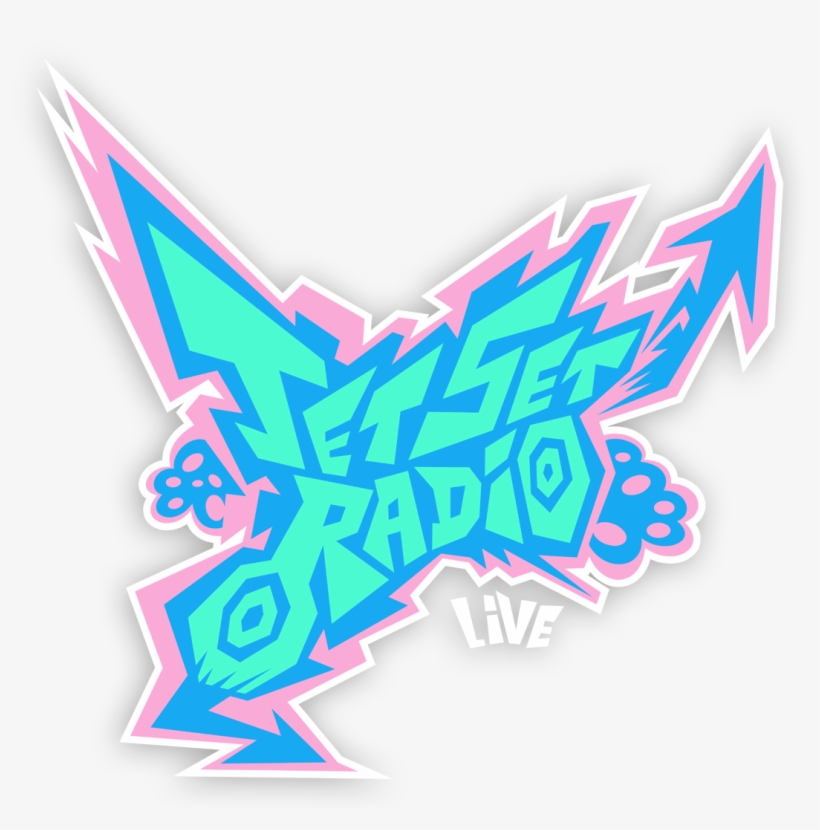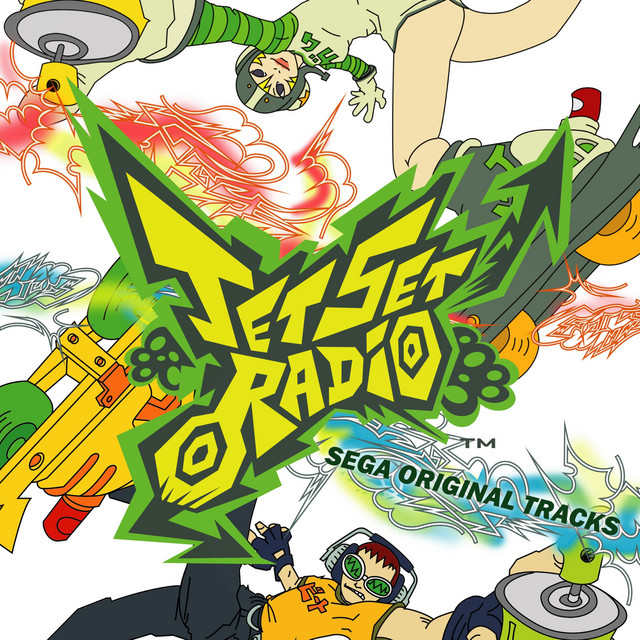
Jet Set Radio Font
Jet Set Radio Font - Jet set is a free font for commercial use created by captain falcon. Remember that game, jet set radio, and it's sequel, jet set radio future? Jet set font download is available free from fontget. Well, this font is a conglomerate of the fonts seen in. Jet set is a various.
Jet set is a free font for commercial use created by captain falcon. Well, this font is a conglomerate of the fonts seen in. Jet set font download is available free from fontget. Remember that game, jet set radio, and it's sequel, jet set radio future? Jet set is a various.
Remember that game, jet set radio, and it's sequel, jet set radio future? Jet set font download is available free from fontget. Well, this font is a conglomerate of the fonts seen in. Jet set is a various. Jet set is a free font for commercial use created by captain falcon.
Well, this font is a conglomerate of the fonts seen in. Jet set is a free font for commercial use created by captain falcon. Remember that game, jet set radio, and it's sequel, jet set radio future? Jet set font download is available free from fontget. Jet set is a various.
Jet set font download is available free from fontget. Jet set is a free font for commercial use created by captain falcon. Jet set is a various. Well, this font is a conglomerate of the fonts seen in. Remember that game, jet set radio, and it's sequel, jet set radio future?
Remember that game, jet set radio, and it's sequel, jet set radio future? Jet set font download is available free from fontget. Jet set is a free font for commercial use created by captain falcon. Well, this font is a conglomerate of the fonts seen in. Jet set is a various.
Jet set is a various. Jet set is a free font for commercial use created by captain falcon. Jet set font download is available free from fontget. Well, this font is a conglomerate of the fonts seen in. Remember that game, jet set radio, and it's sequel, jet set radio future?
Remember that game, jet set radio, and it's sequel, jet set radio future? Jet set is a free font for commercial use created by captain falcon. Jet set is a various. Well, this font is a conglomerate of the fonts seen in. Jet set font download is available free from fontget.
Jet set font download is available free from fontget. Jet set is a various. Well, this font is a conglomerate of the fonts seen in. Remember that game, jet set radio, and it's sequel, jet set radio future? Jet set is a free font for commercial use created by captain falcon.
Well, this font is a conglomerate of the fonts seen in. Jet set font download is available free from fontget. Jet set is a various. Jet set is a free font for commercial use created by captain falcon. Remember that game, jet set radio, and it's sequel, jet set radio future?
Jet set is a various. Jet set font download is available free from fontget. Jet set is a free font for commercial use created by captain falcon. Well, this font is a conglomerate of the fonts seen in. Remember that game, jet set radio, and it's sequel, jet set radio future?
Jet set is a various. Remember that game, jet set radio, and it's sequel, jet set radio future? Jet set is a free font for commercial use created by captain falcon. Jet set font download is available free from fontget. Well, this font is a conglomerate of the fonts seen in.
Jet set font download is available free from fontget. Jet set is a various. Well, this font is a conglomerate of the fonts seen in. Remember that game, jet set radio, and it's sequel, jet set radio future? Jet set is a free font for commercial use created by captain falcon.
Well, this font is a conglomerate of the fonts seen in. Jet set is a various. Jet set font download is available free from fontget. Remember that game, jet set radio, and it's sequel, jet set radio future?